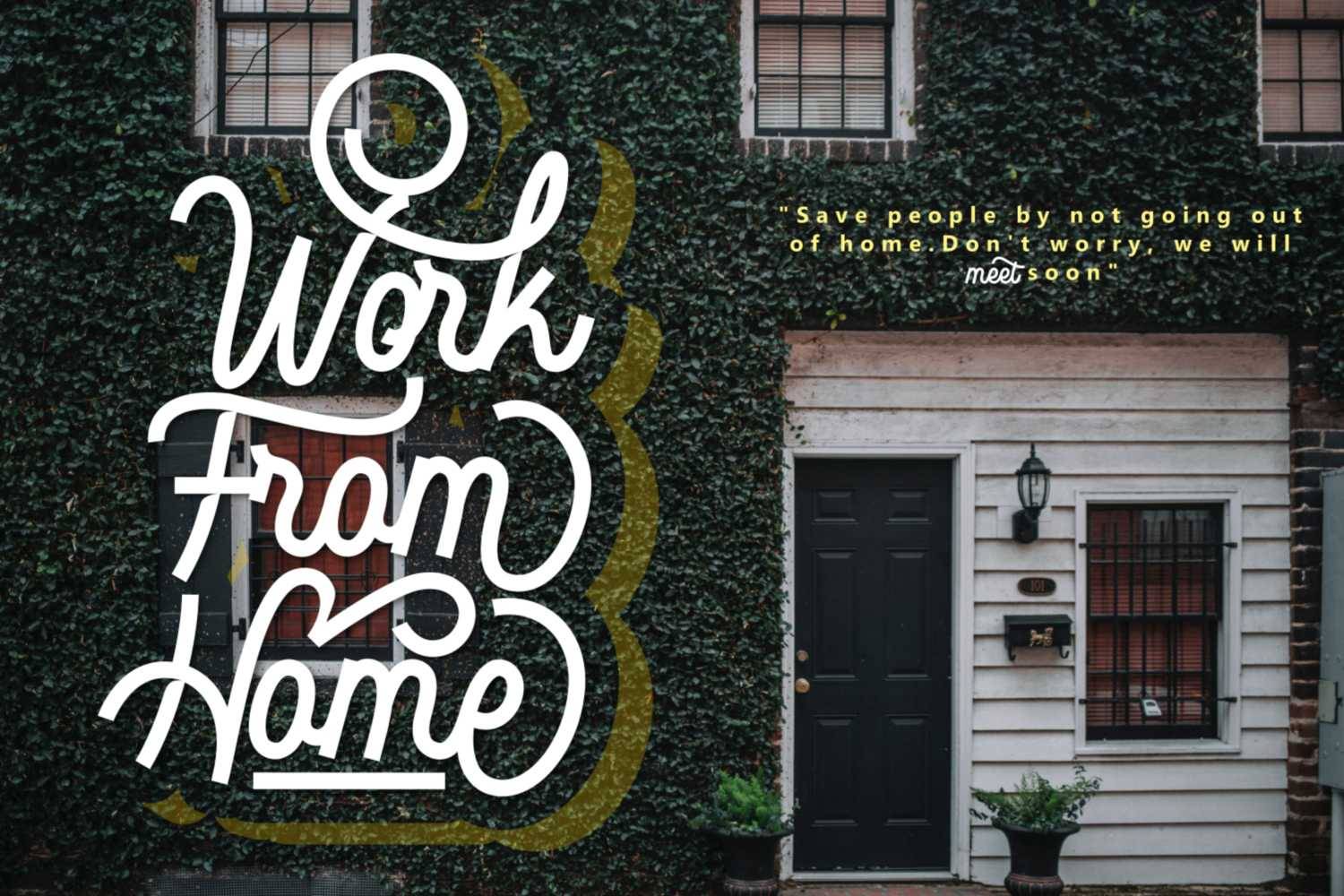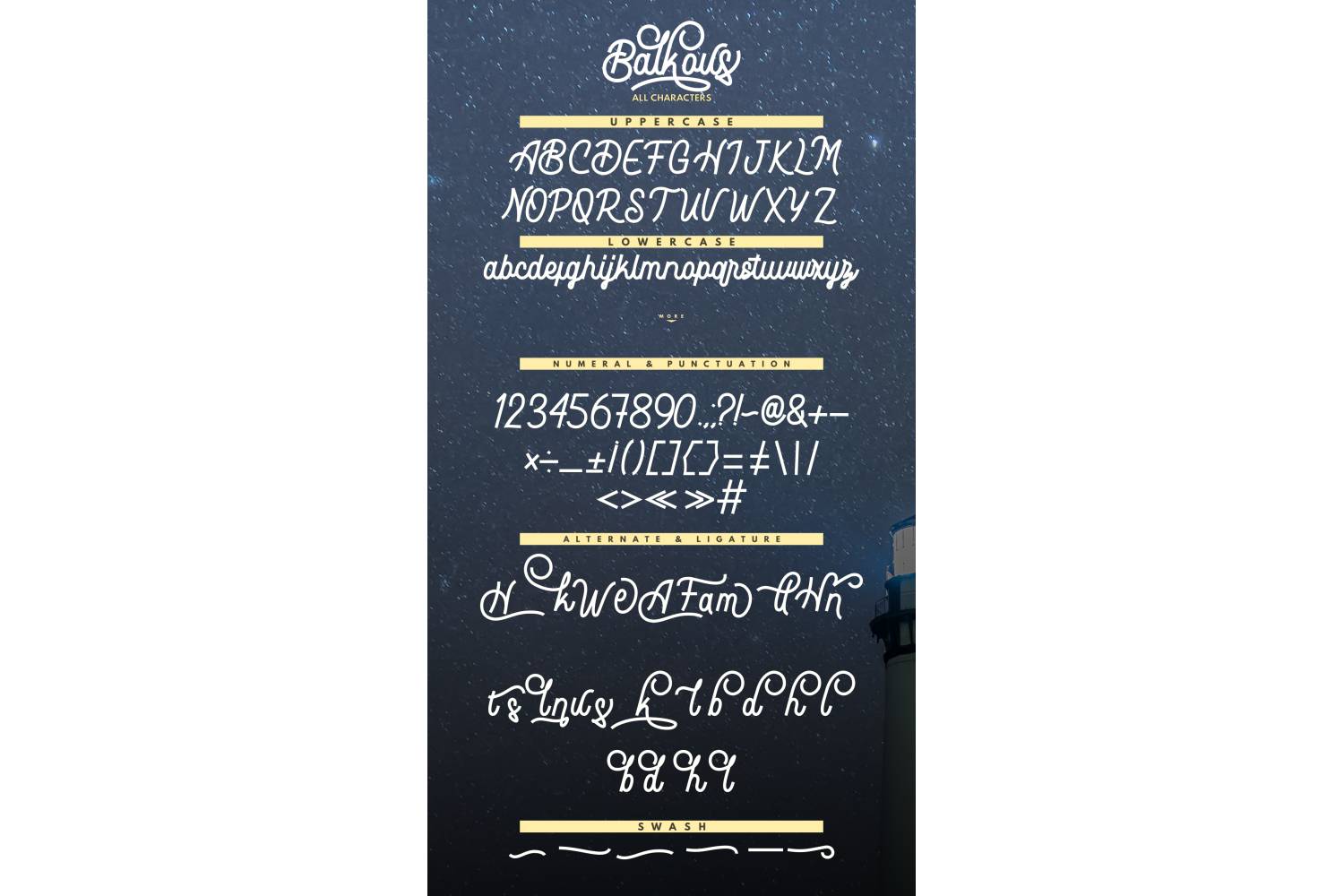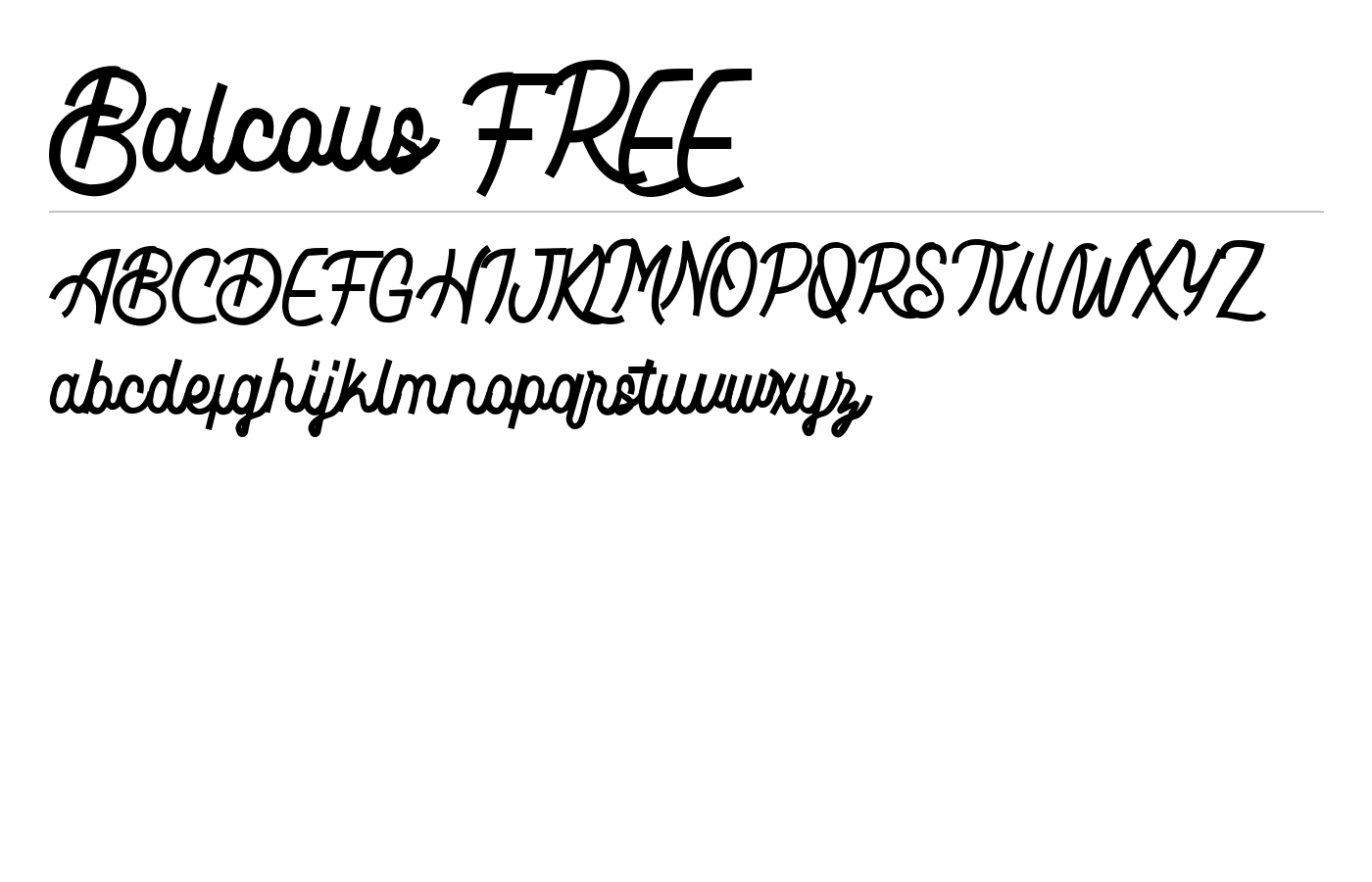
Balkous is a playful and elegant script font with smooth, flowing strokes and moderate weight, giving it a lively yet refined appearance. Its cursive style features a lovely balance between clean, rounded letterforms and subtle contrasts in stroke thickness, making it ideal for creative projects, invitations, branding, or headlines that seek a friendly and stylish touch. This font works well in designs that want to convey warmth and personality while maintaining clarity and sophistication.
Balkous Font
About Balkous Font